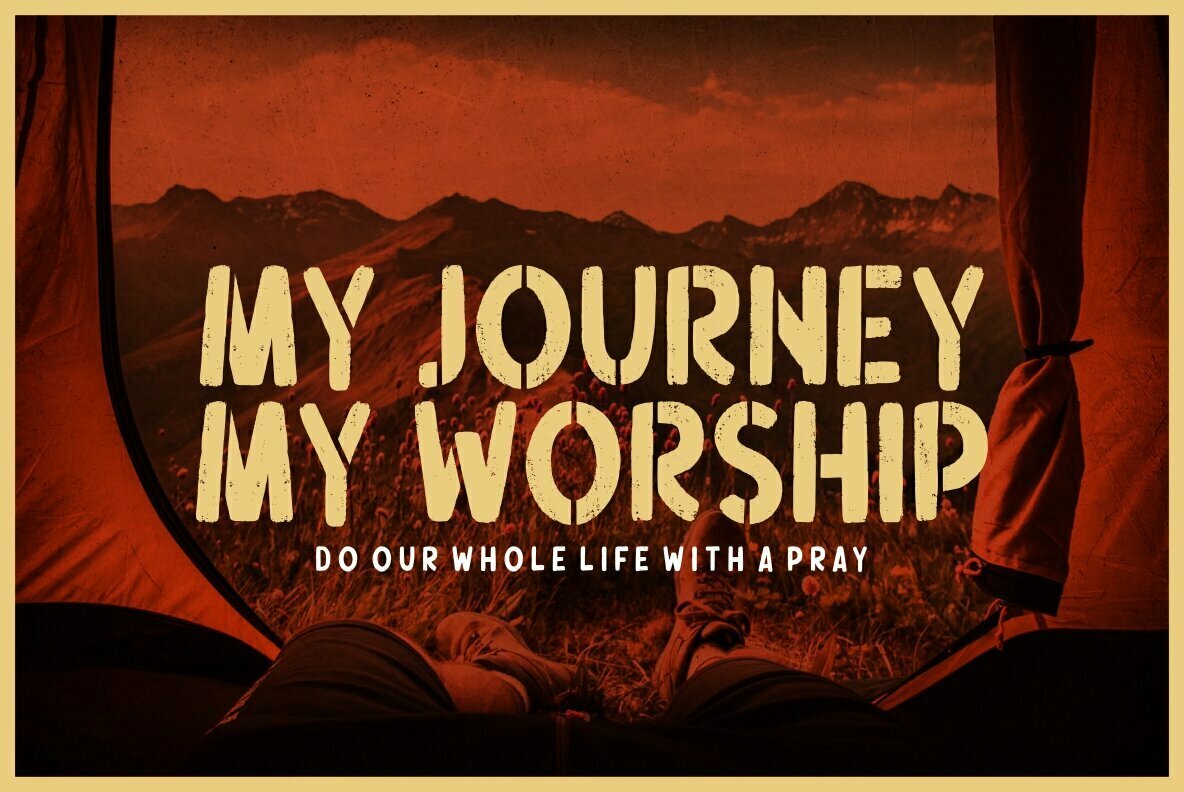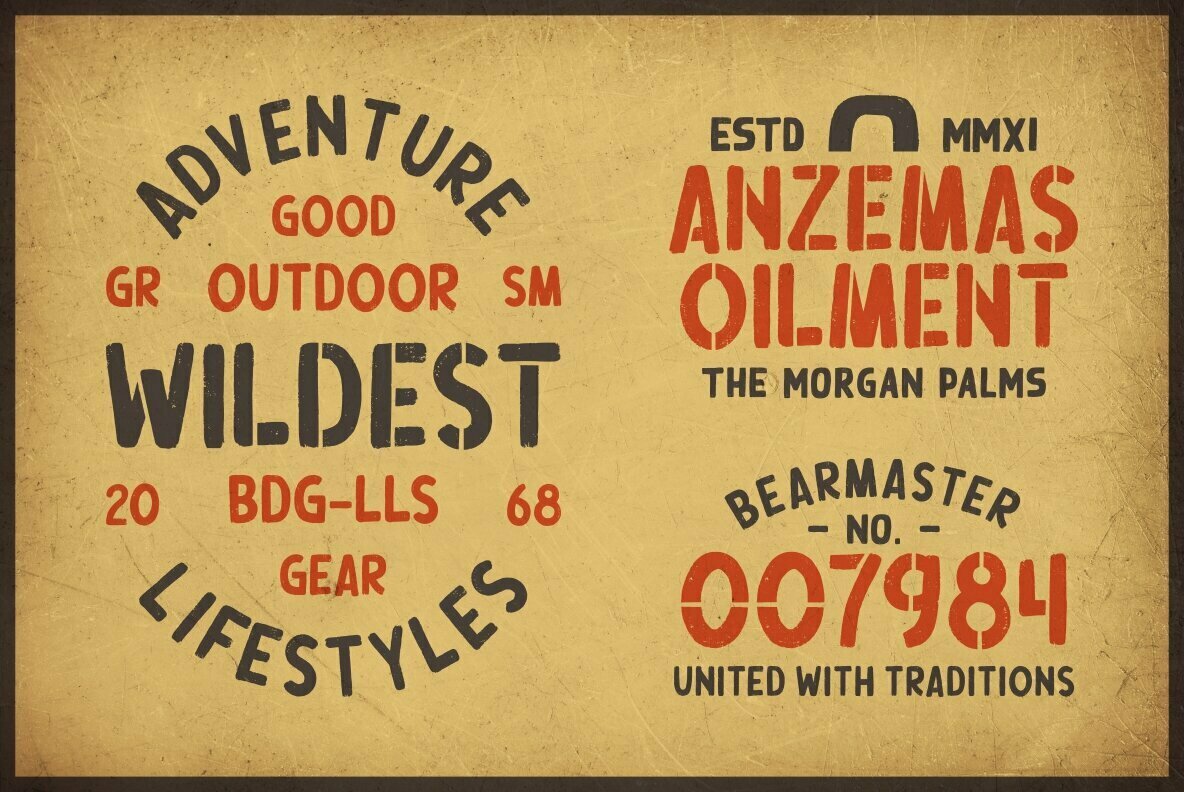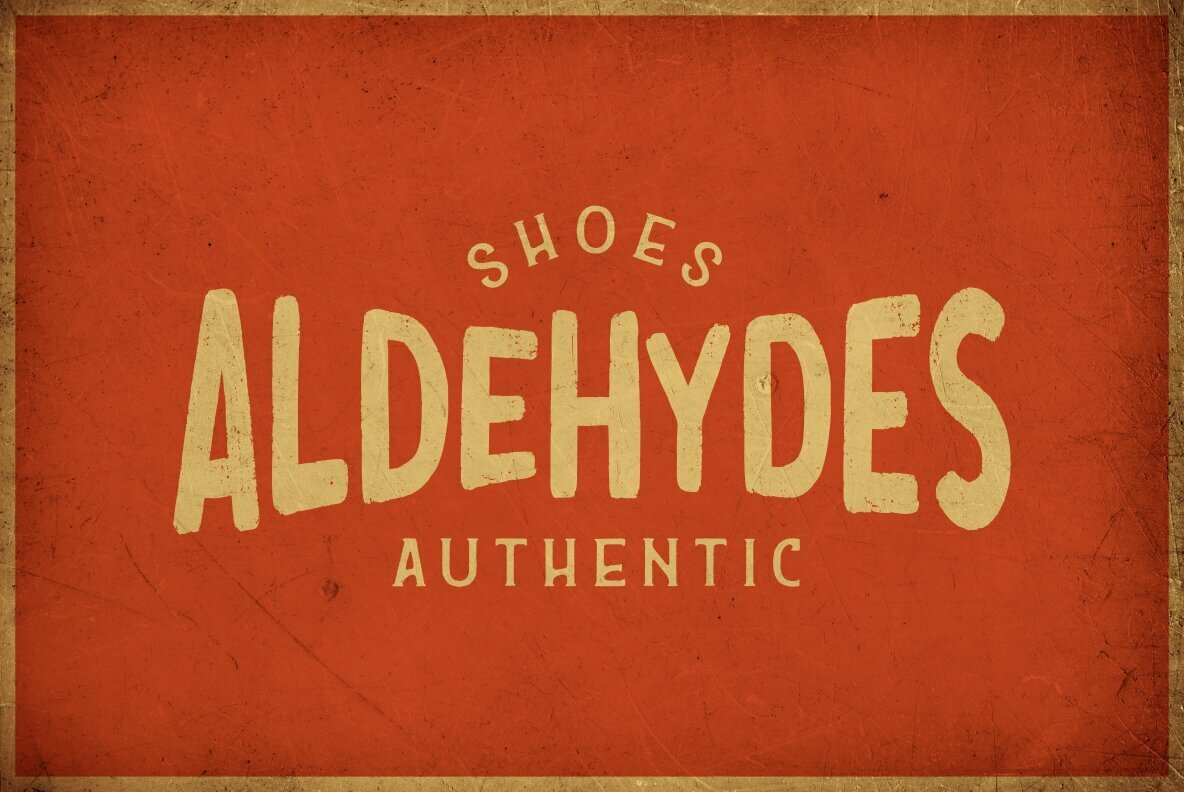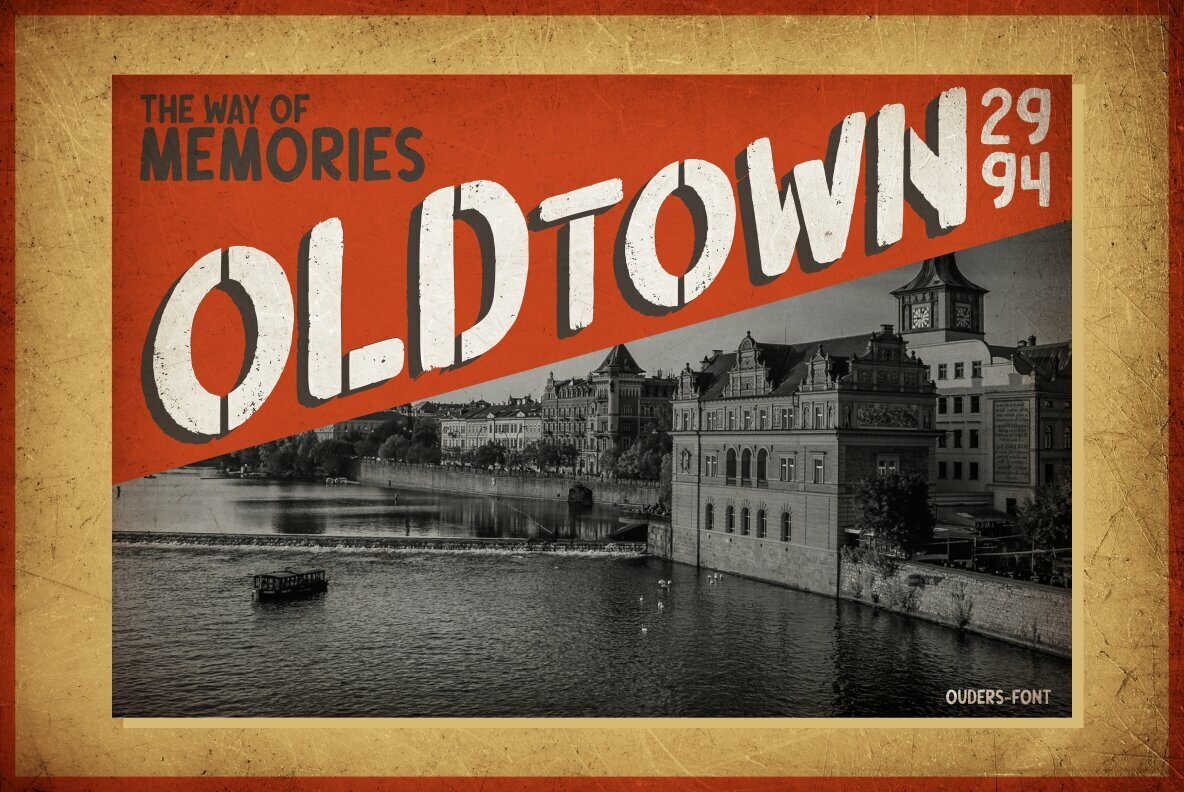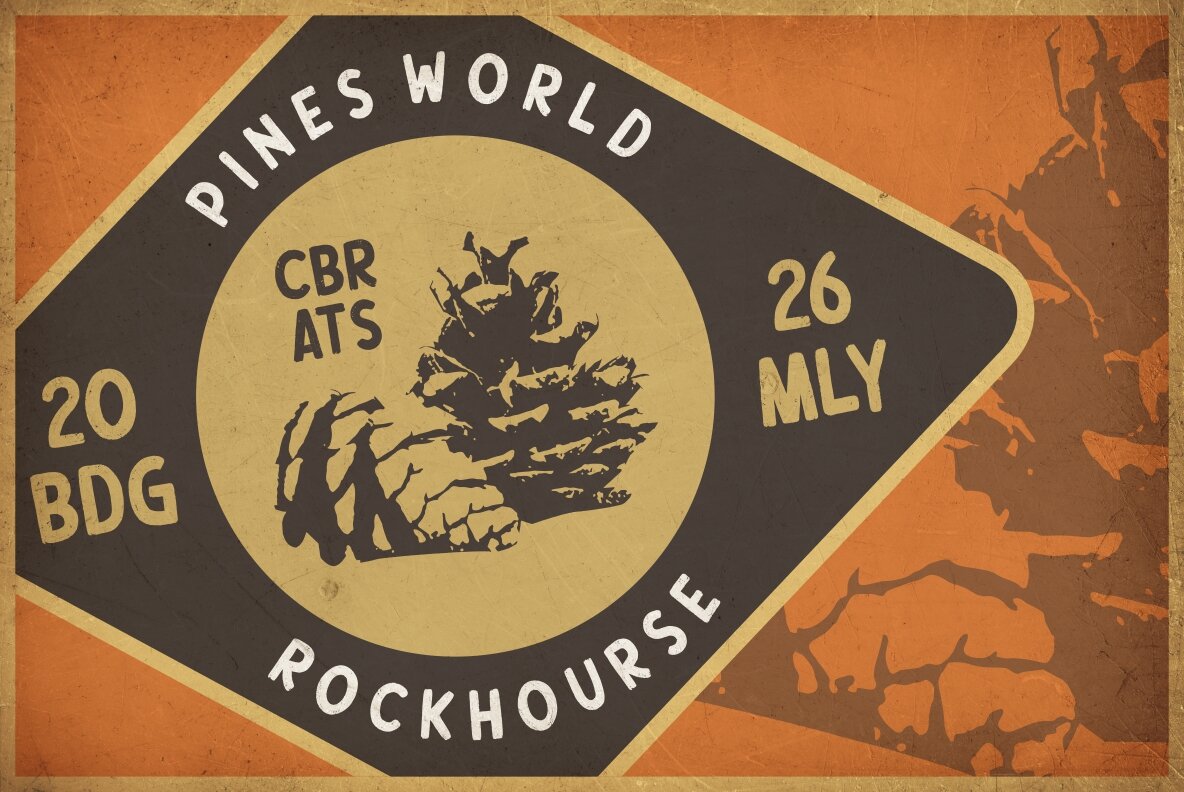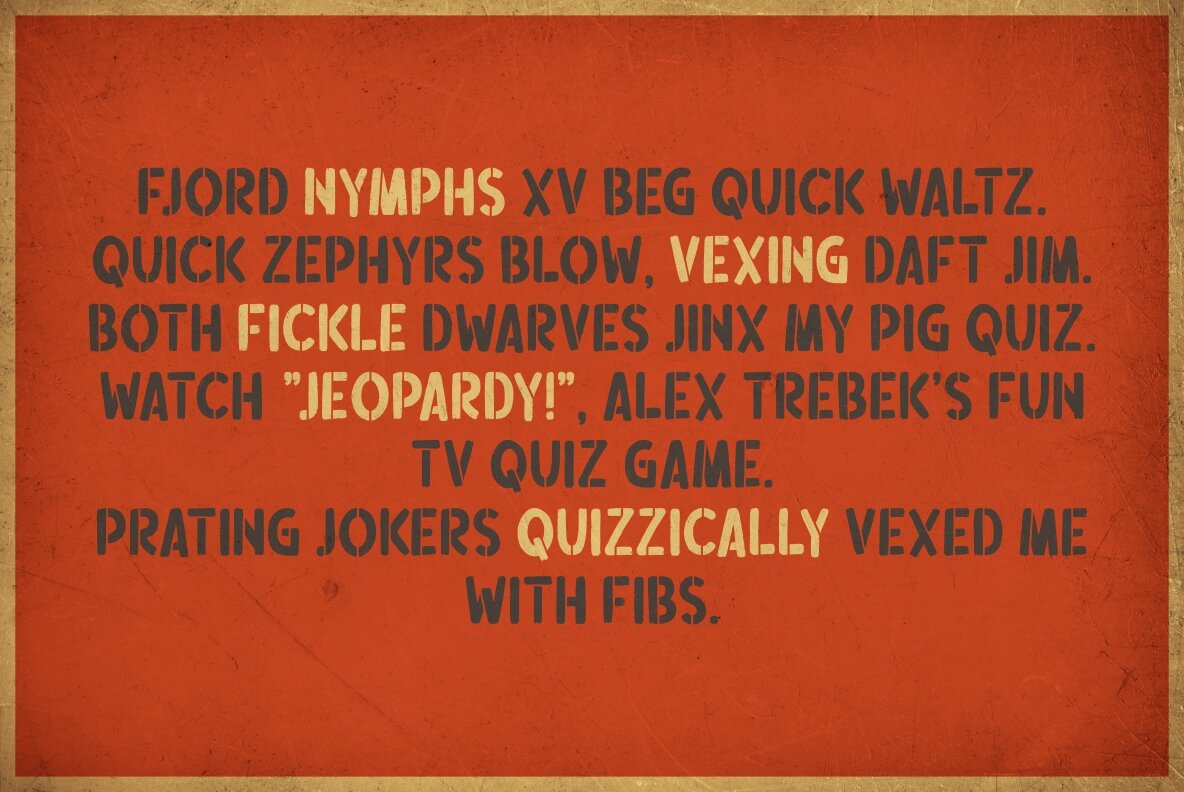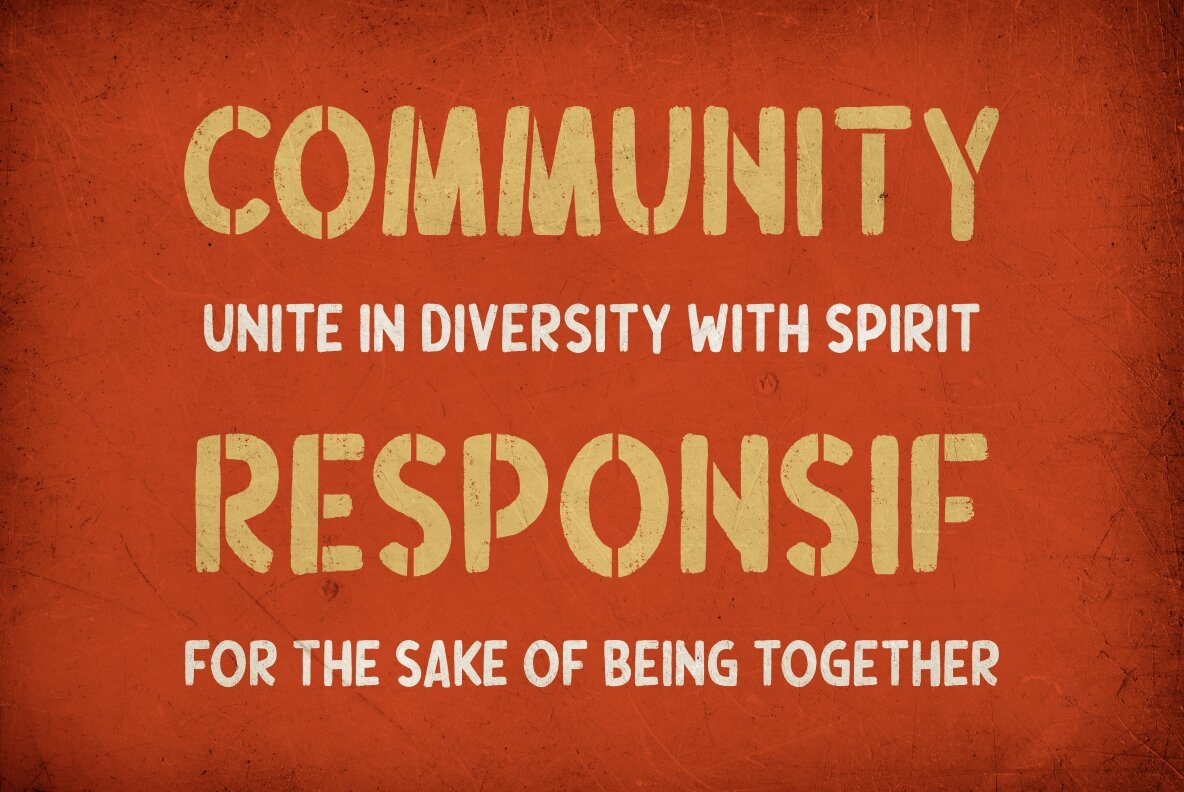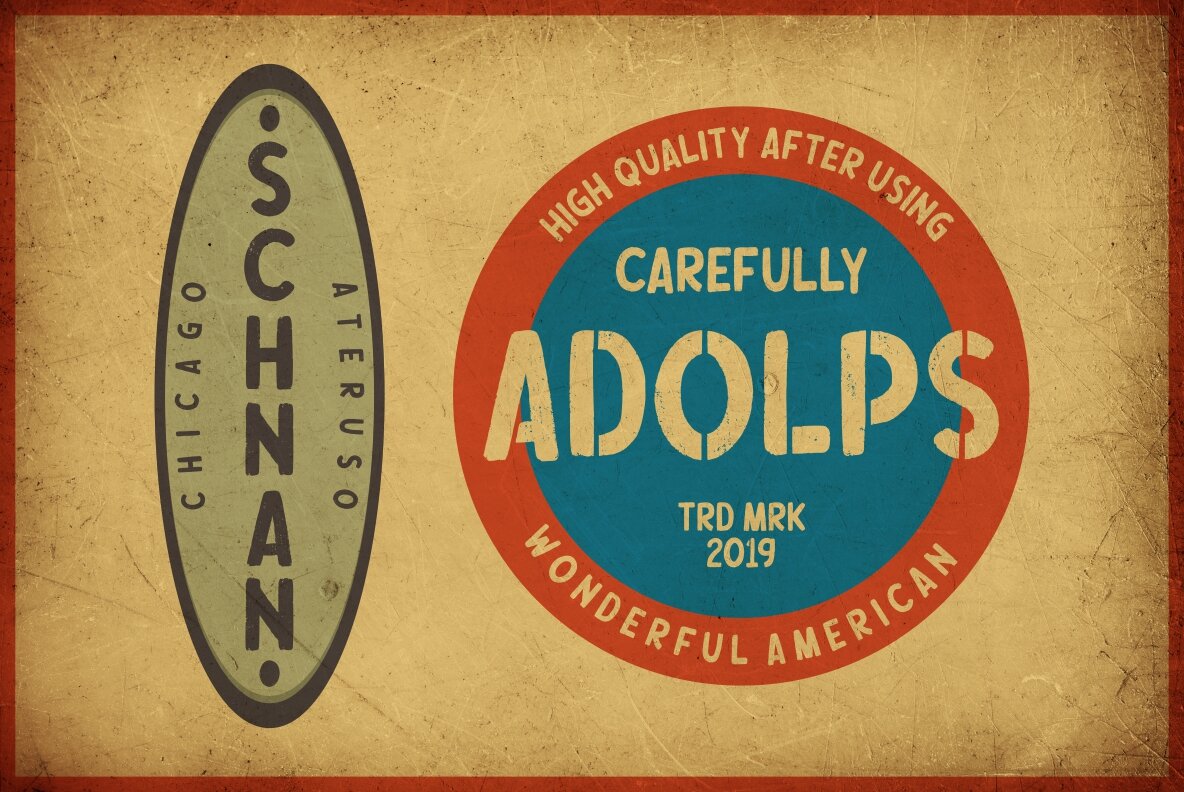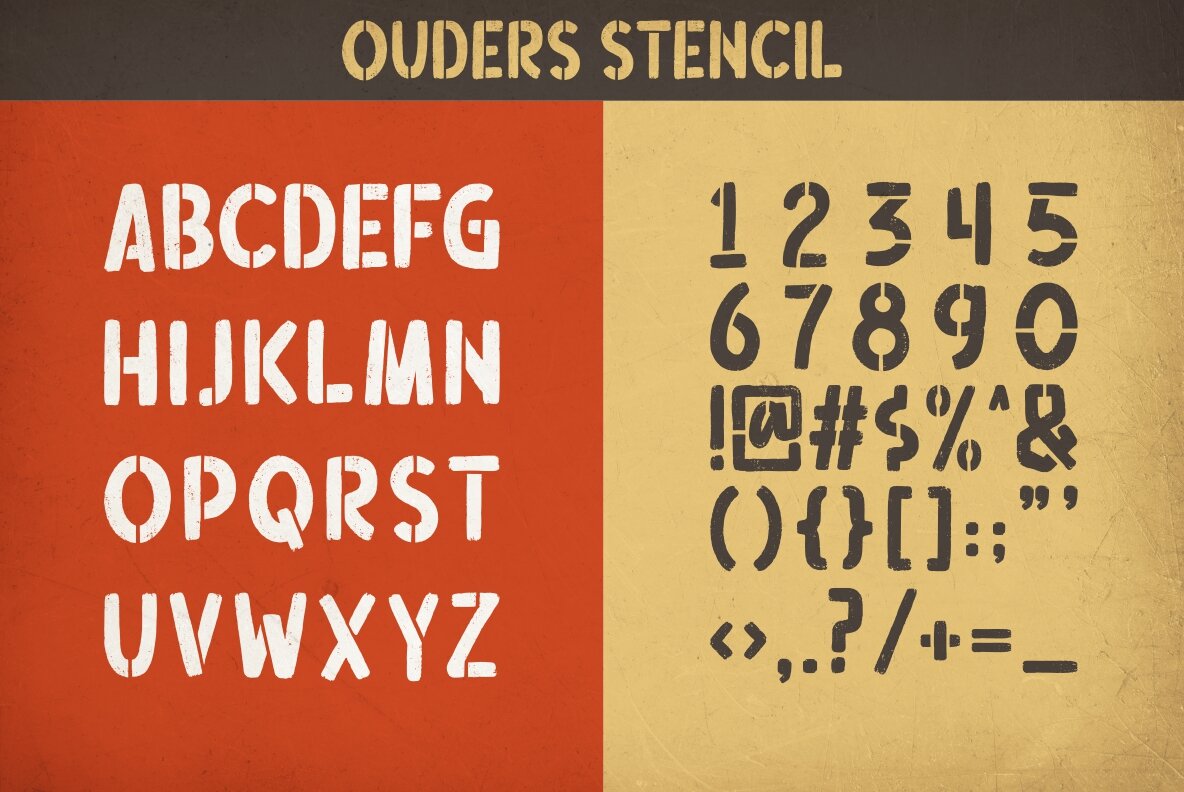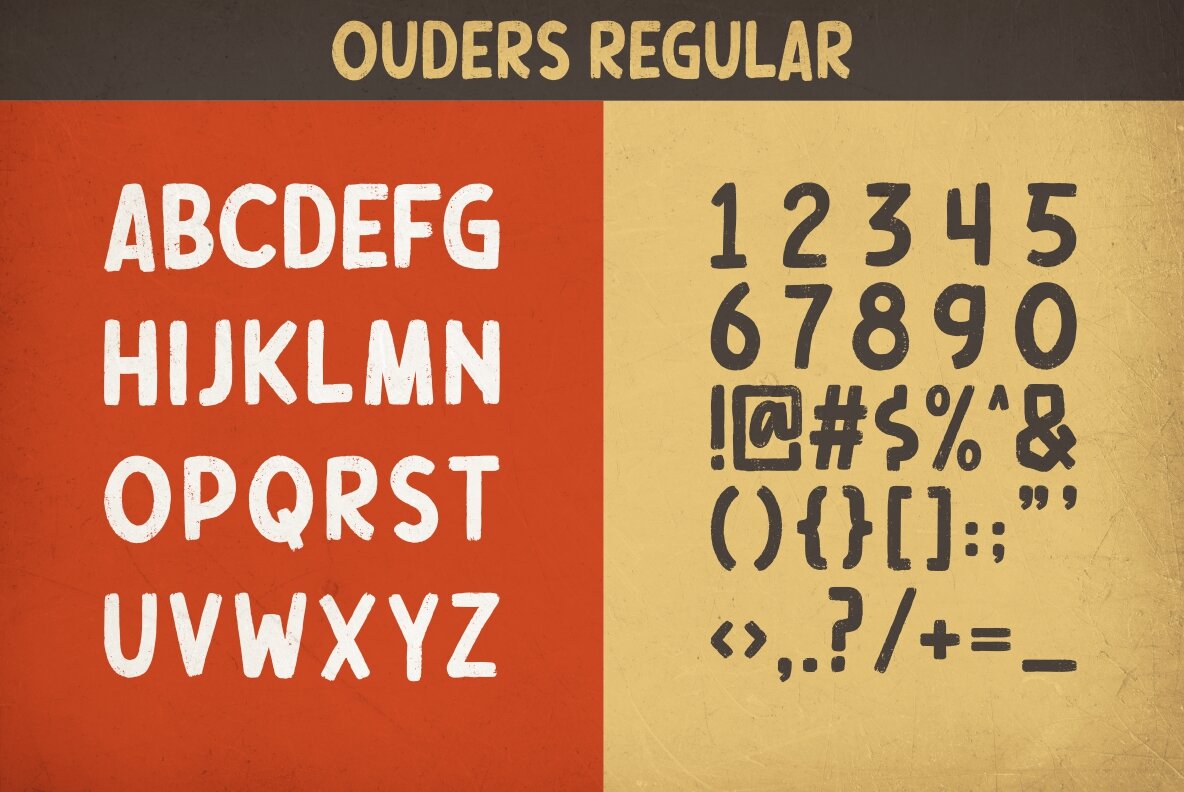
Ouders Font
Ouders is a unique creation by Risman Ginarwan, inspired by original and hand-drawn artistry. This font exudes a vintage charm reminiscent of classic, handmade craftsmanship, making it ideal for anyone seeking a retro aesthetic. Whether your project involves branding materials, logos, or print designs, Ouders lends a distinctive touch.Ouders: Hand-Drawn Font for a Vintage Aesthetic
Core Features